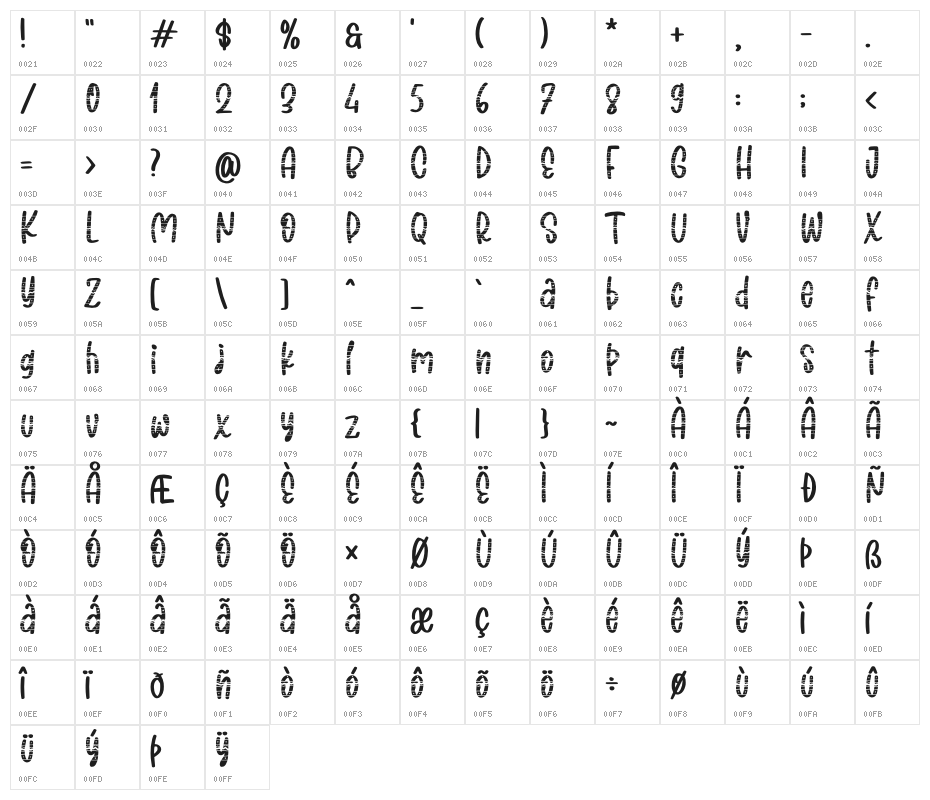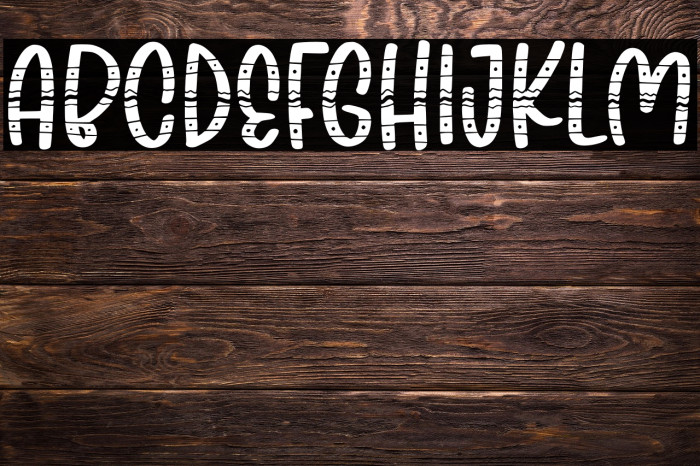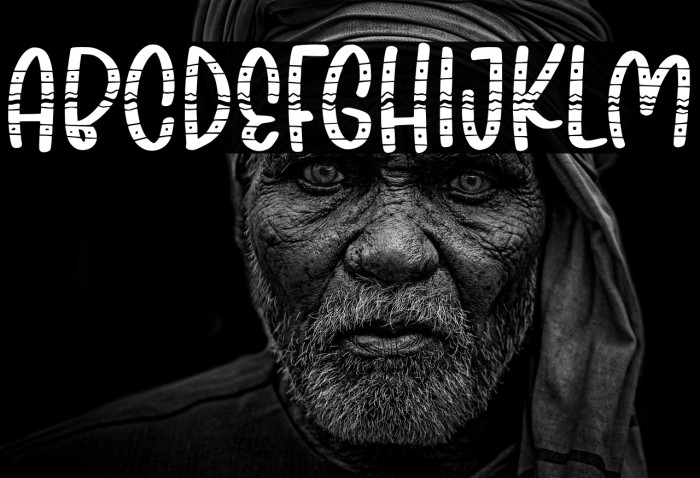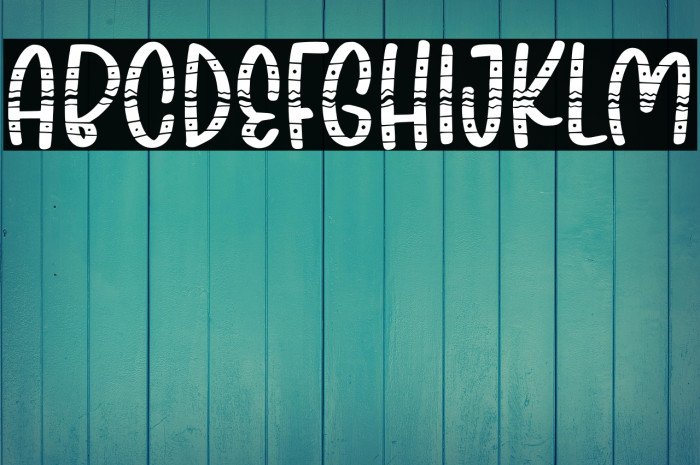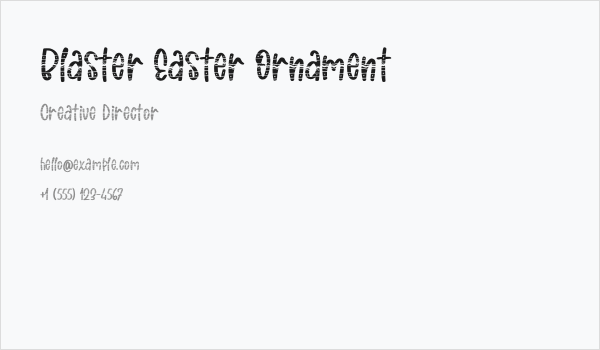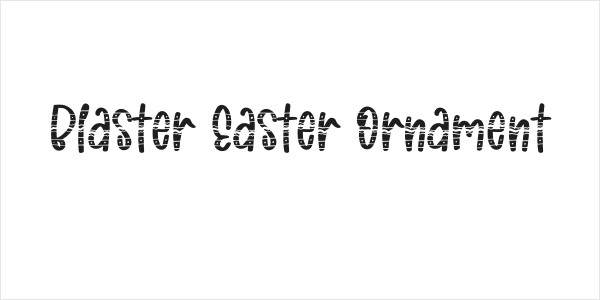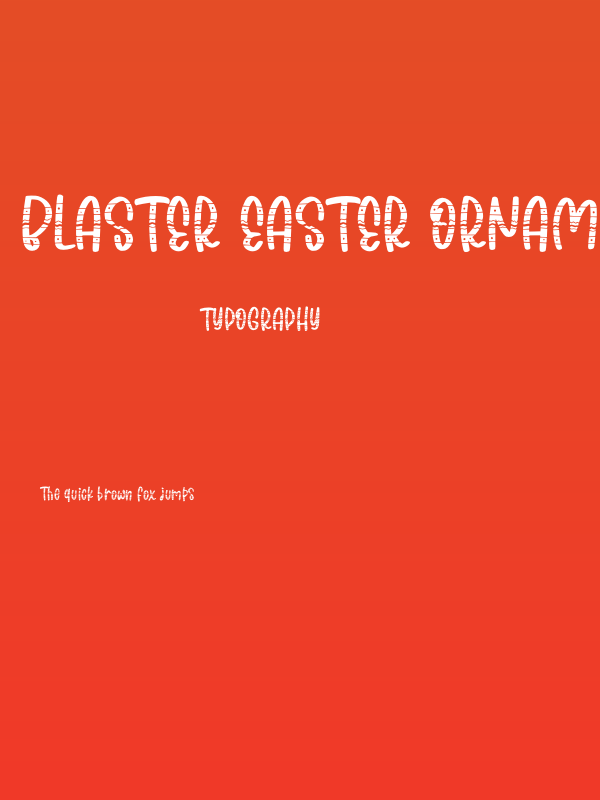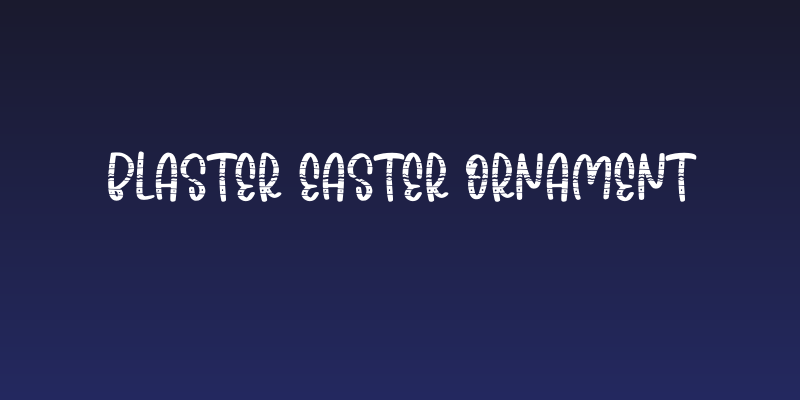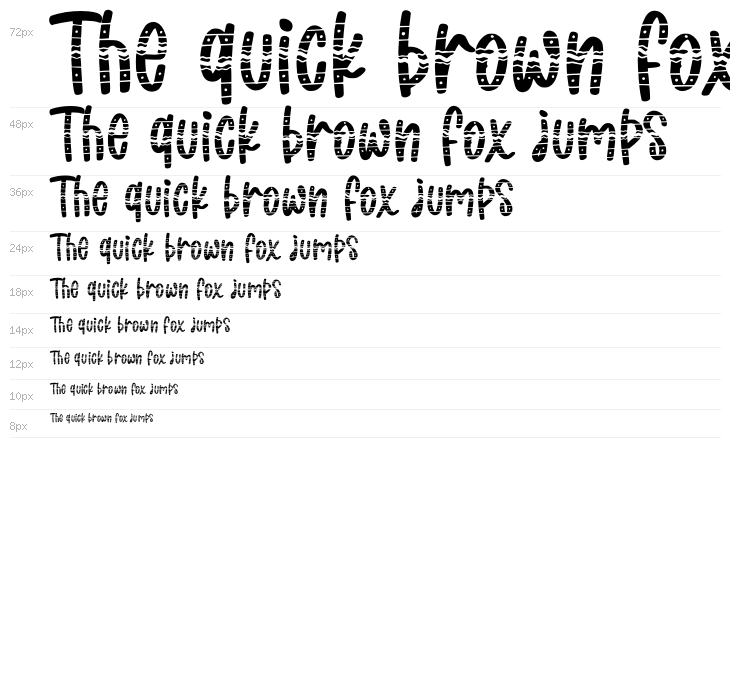
Blaster Easter Ornament Font
Blaster Easter Ornament Description
This playful and decorative font features a unique pattern within each character, reminiscent of festive ornaments or Easter decorations. The letters are bold and rounded, with a whimsical flair that adds a touch of fun to any design. The uppercase and lowercase letters maintain a consistent style, with a slightly irregular baseline that enhances the playful nature of the font. Numbers and special characters are designed with the same decorative pattern, ensuring a cohesive look across all text elements.
| Proposed Projects | Ideal for holiday-themed designs, children's book covers, greeting cards, and playful branding projects. |